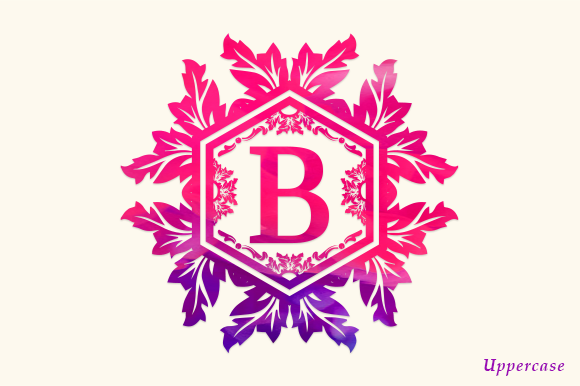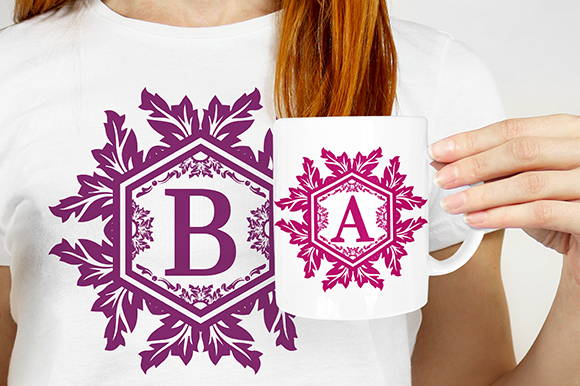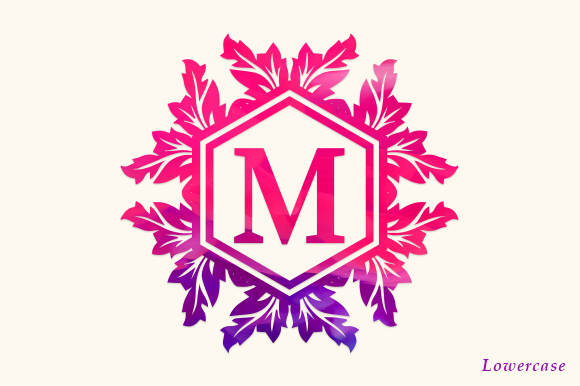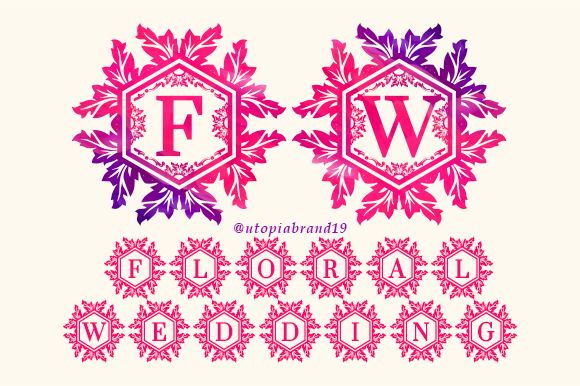
Introduction to Floral Wedding Font
Floral Wedding is a beautiful and chic decorative font.
Add this romantic and lovely looking font to each of your love letters, wedding invitations or favorite design ideas, and you will be astounded by the outcome .